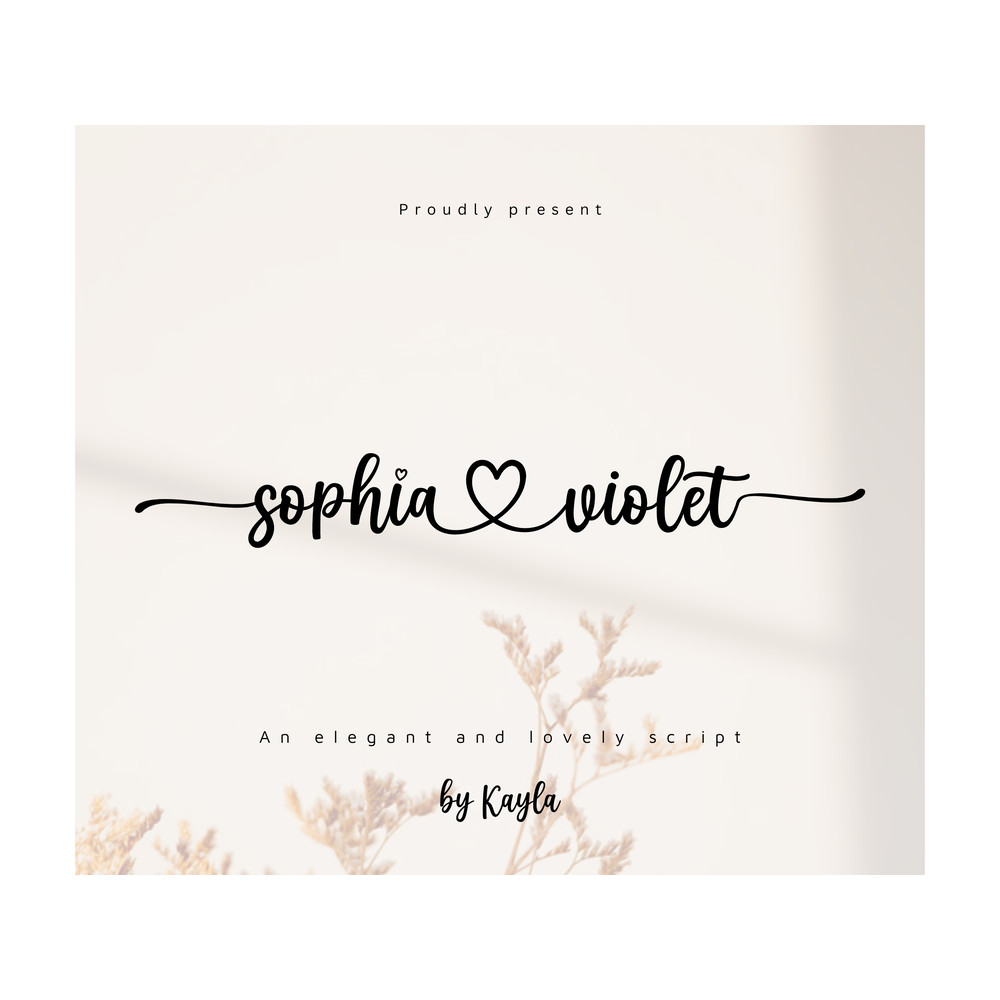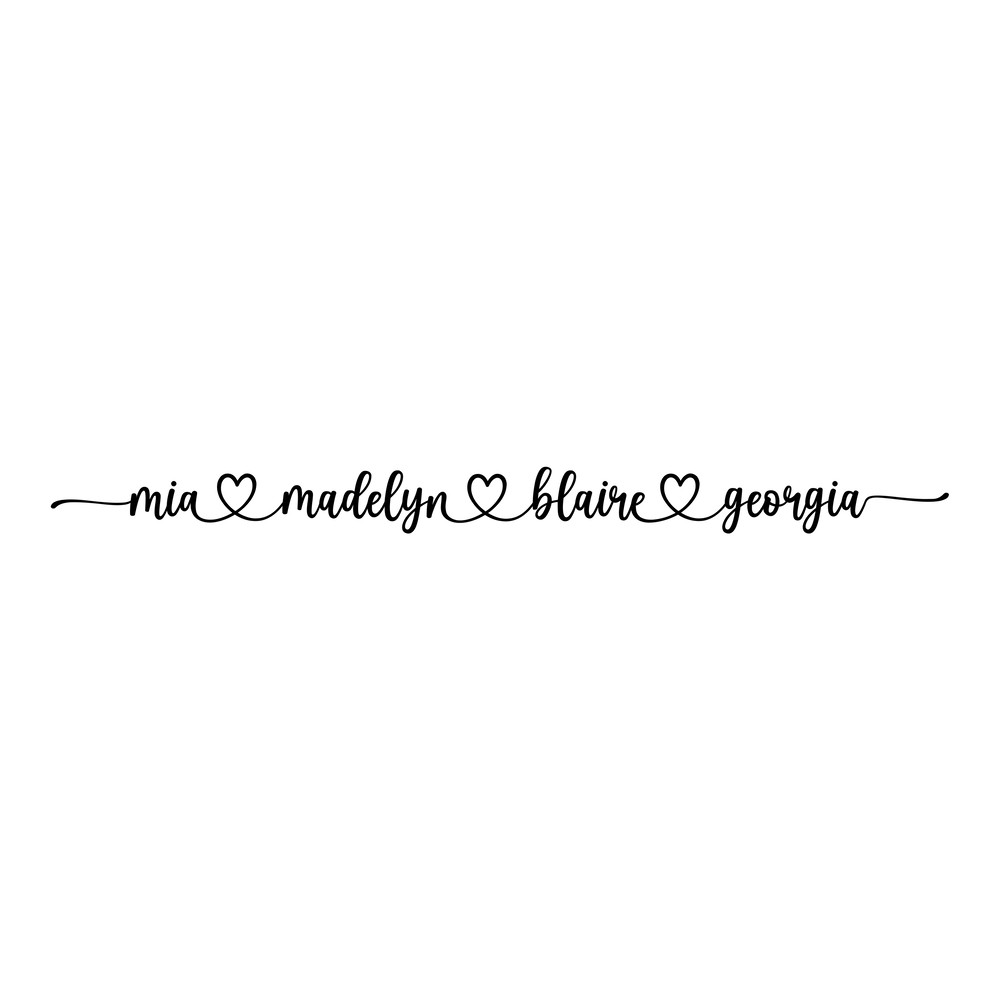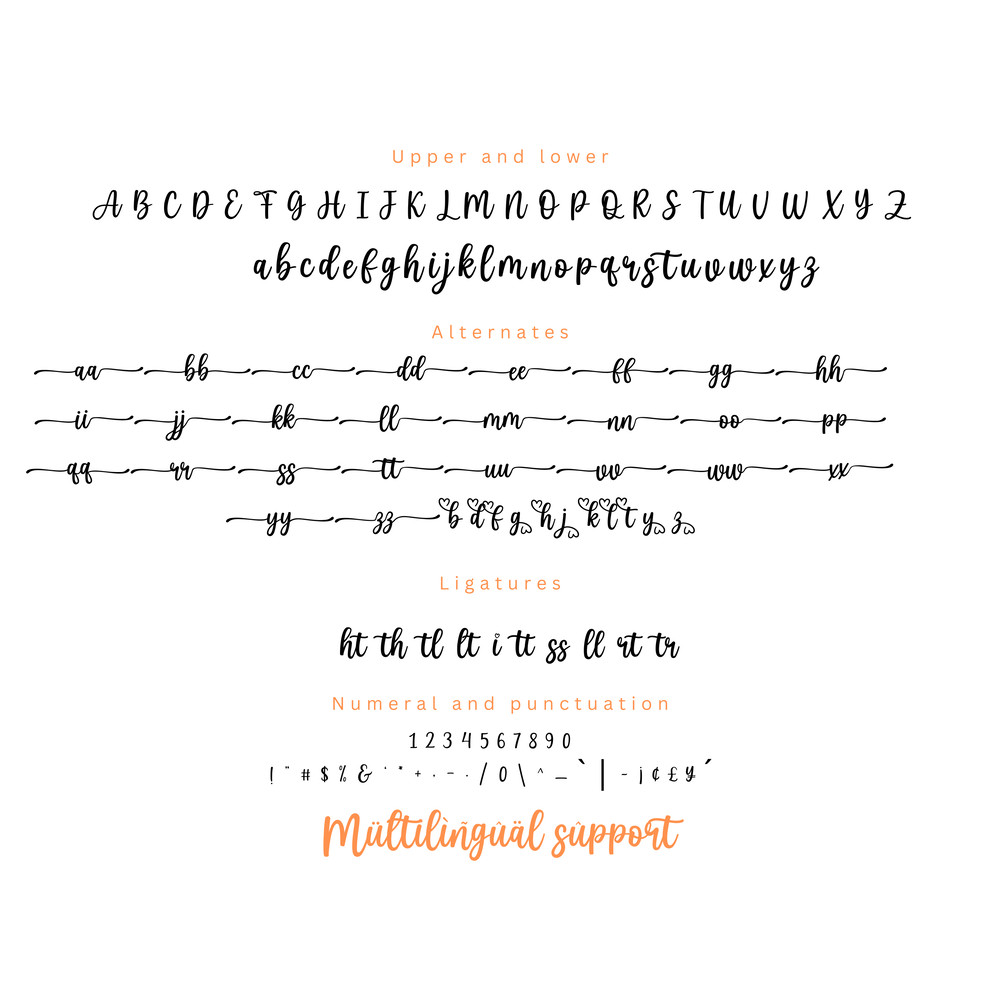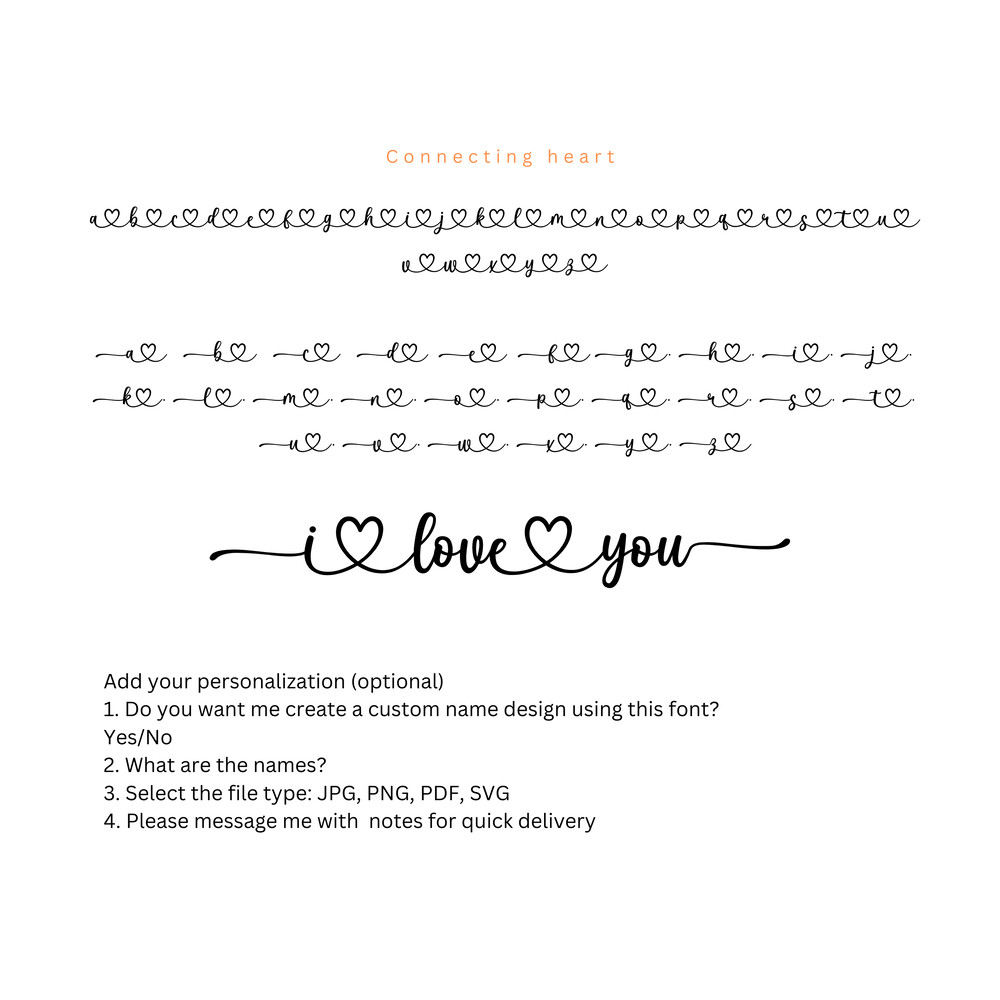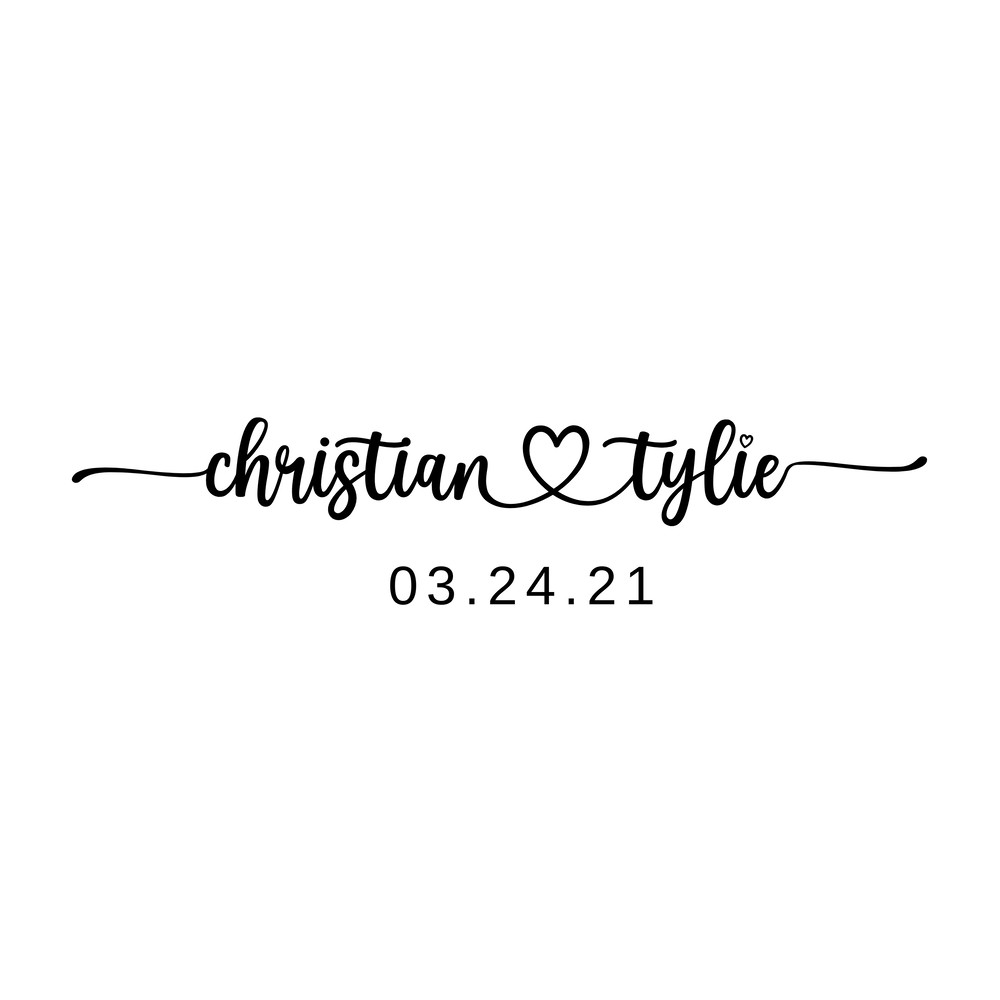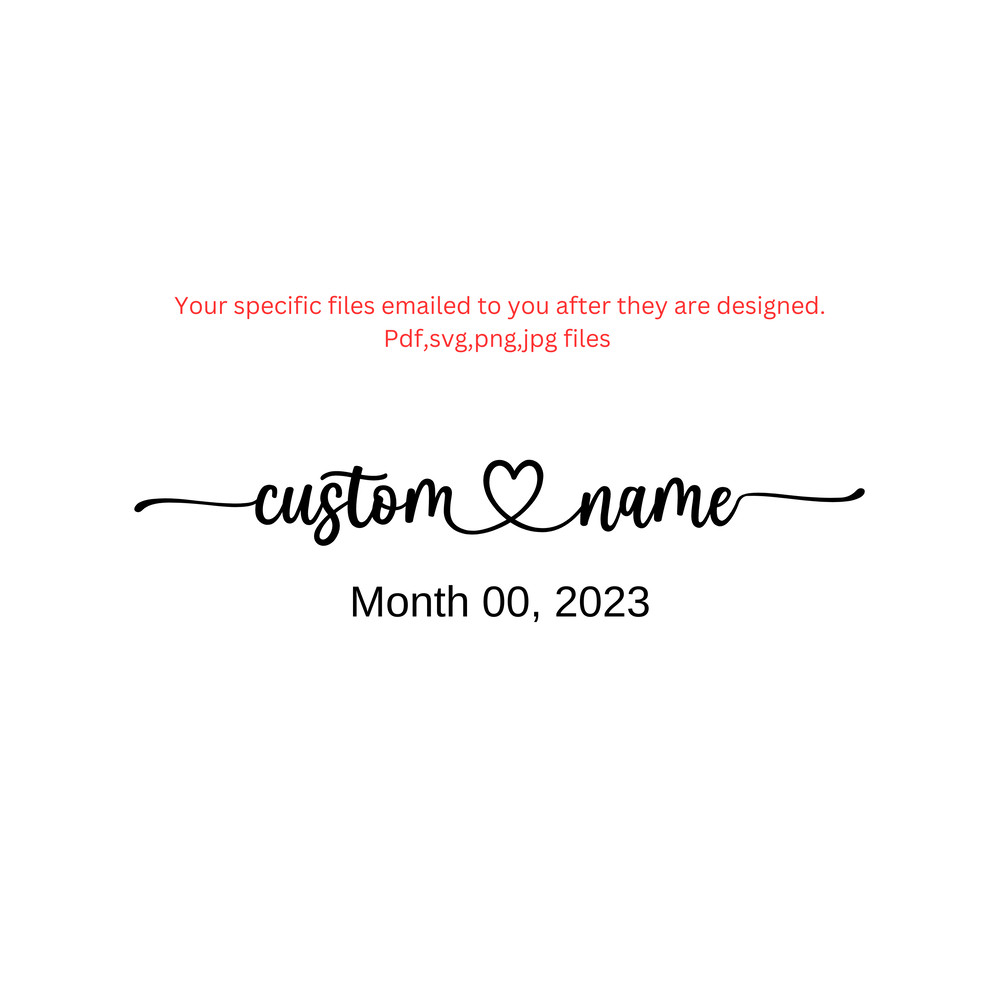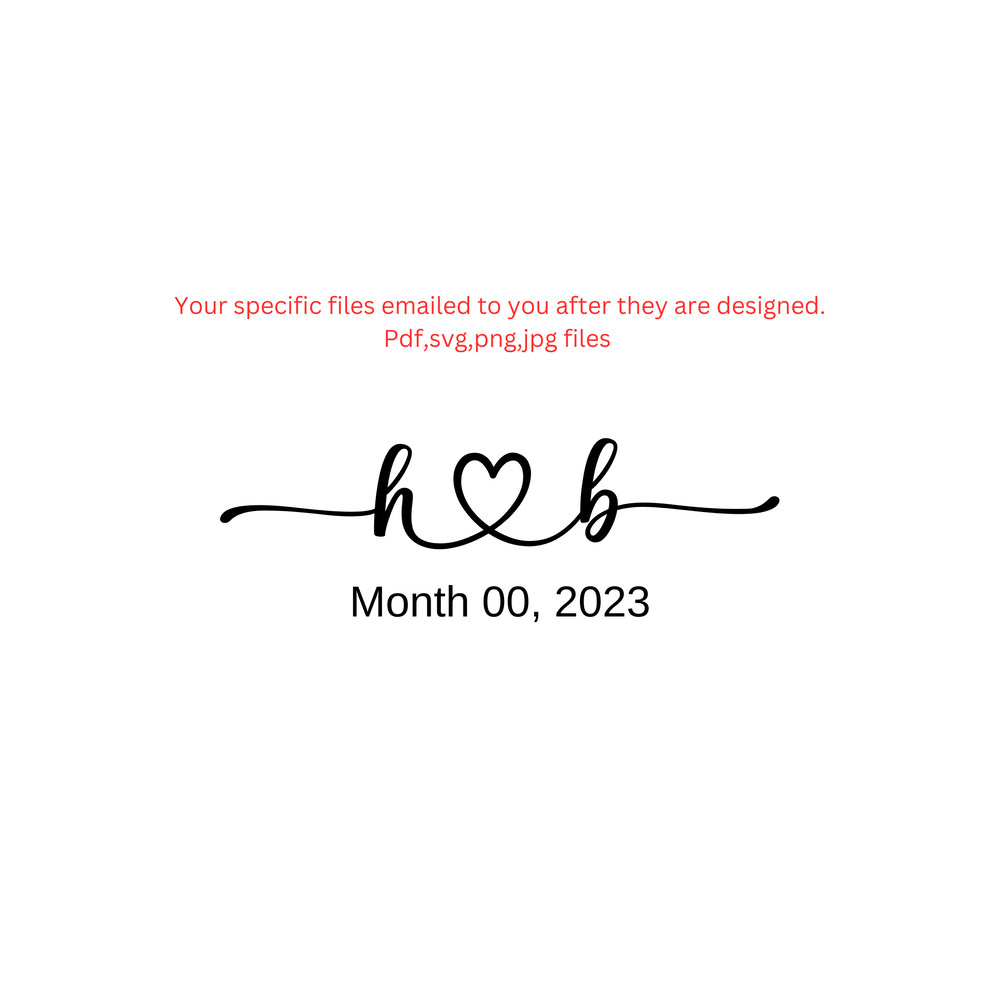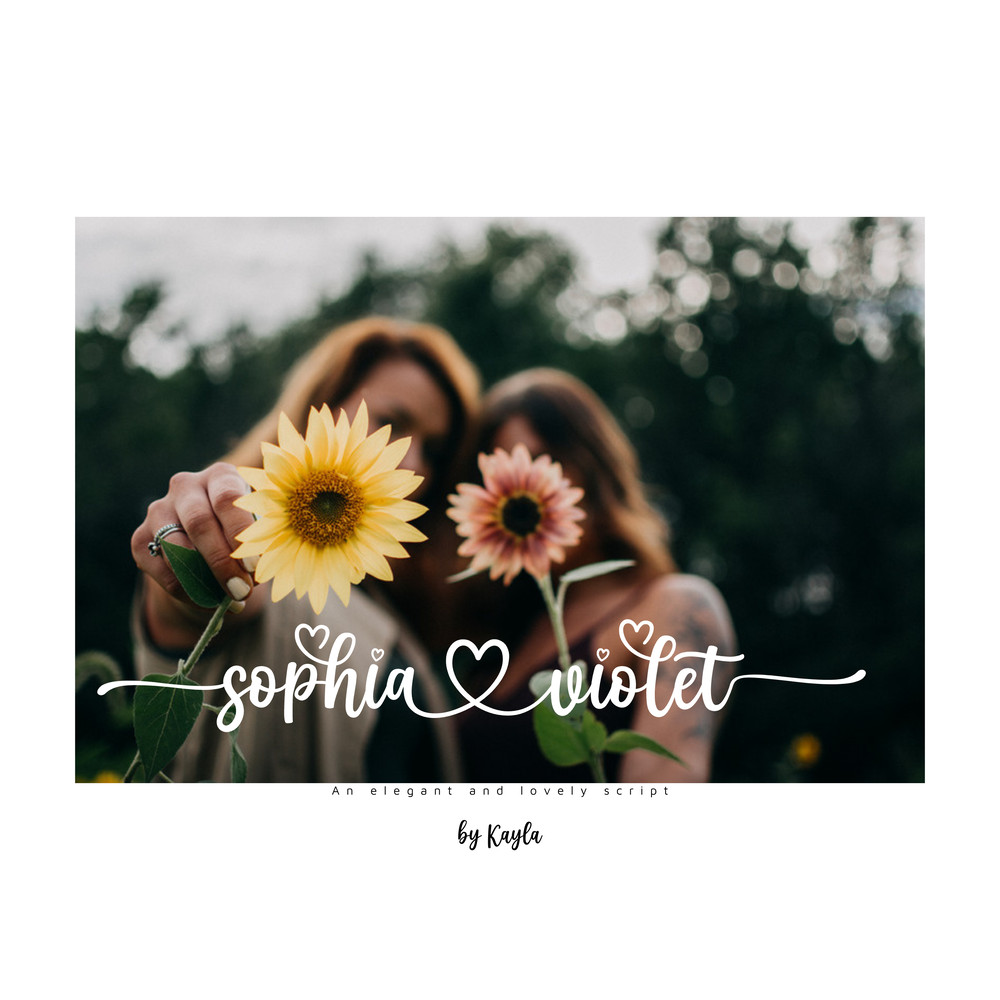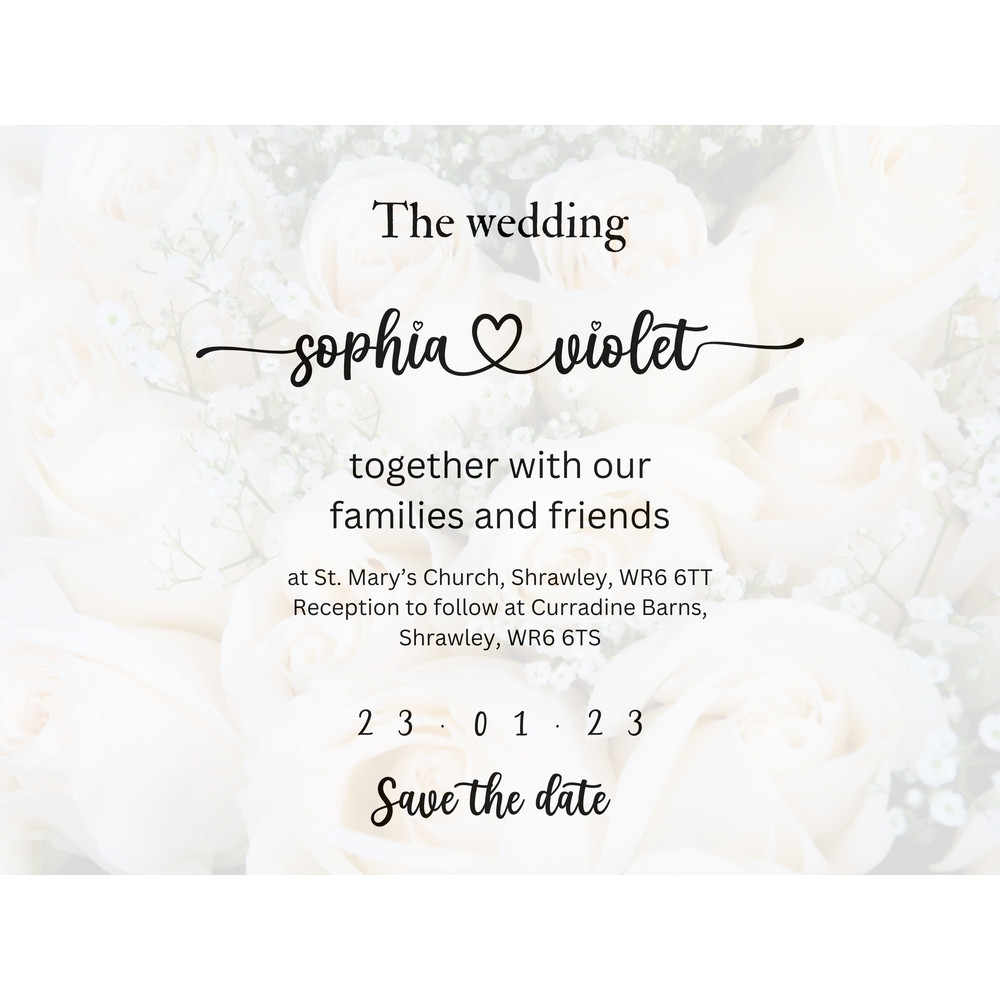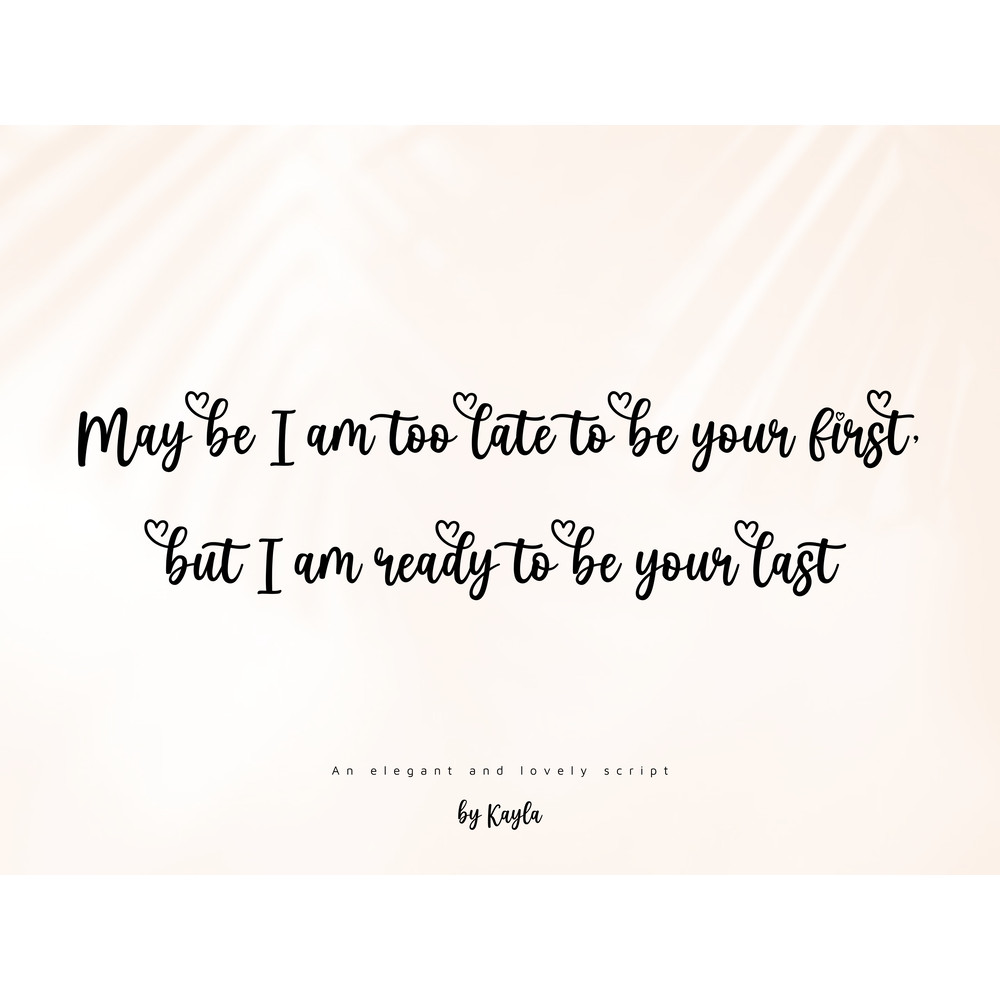
Connecting heart Font with tails, Lovely Wedding Fonts,Font with tails,Font with swashes, tails, names heart between
Introducing romantic and delicate handwritten font, featuring hearts as ornaments. Dainty and joyful, this font will be ideal for writing wedding invitations, cards or any other design that may need a romantic, personalized touch!
Features:
- Basic Latin A-Z and a-z
- Numbers
- Symbols
- Stylistic Alternate
- Swashes
- Multilingual support